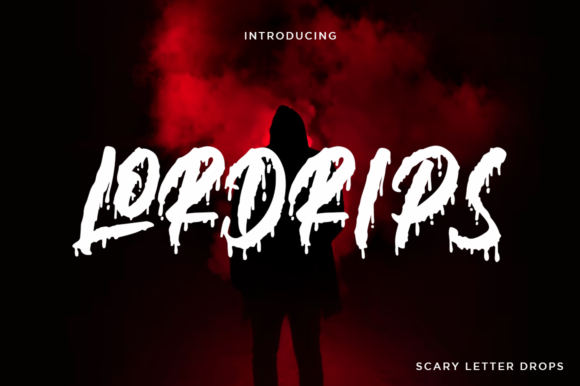
Lordrips Font
Font Name : Lordrips Font
Author : Haksen
Behold, the Lordrips Font, a typographic masterpiece conjured from the depths of imagination to ignite the darkest corners of your creativity. This display font exudes an aura of mystery and intrigue, making it the perfect choice for conjuring chilling tales and spine-tingling narratives.
With its sharp angles and ominous curves, Lordrips paints a vivid picture of haunted mansions, creaking coffins, and shadowy figures lurking in the night. Crafted by the visionary mind of Haksen, this font is a symphony of darkness, perfectly suited for horror books, Halloween-themed designs, and any project that demands a touch of the macabre.
Step into the realm of the supernatural with Lordrips, where words become whispers of the unknown and letters transform into eerie apparitions. Its bold presence commands attention, while its intricate details invite readers to delve into the depths of their imagination. Whether you're crafting a haunting novel, designing a chilling website, or creating spine-chilling invitations, Lordrips will cast a spellbinding charm on your audience.
Imagine your readers' eyes widening in terror as they encounter the chilling beauty of Lordrips. Its unique characters dance on the page, creating an atmosphere of suspense and unease. Feel the tension rise as your words take on a life of their own, captivating readers and transporting them to a world of shadows and secrets.
Lordrips is not just a font; it's an experience, a journey into the unknown. With its dark allure and captivating presence, this font will unleash your creativity and leave an indelible mark on the minds of your readers. Dare to embrace the darkness, embrace the Lordrips Font, and watch as your creations come alive with spine-tingling intensity.